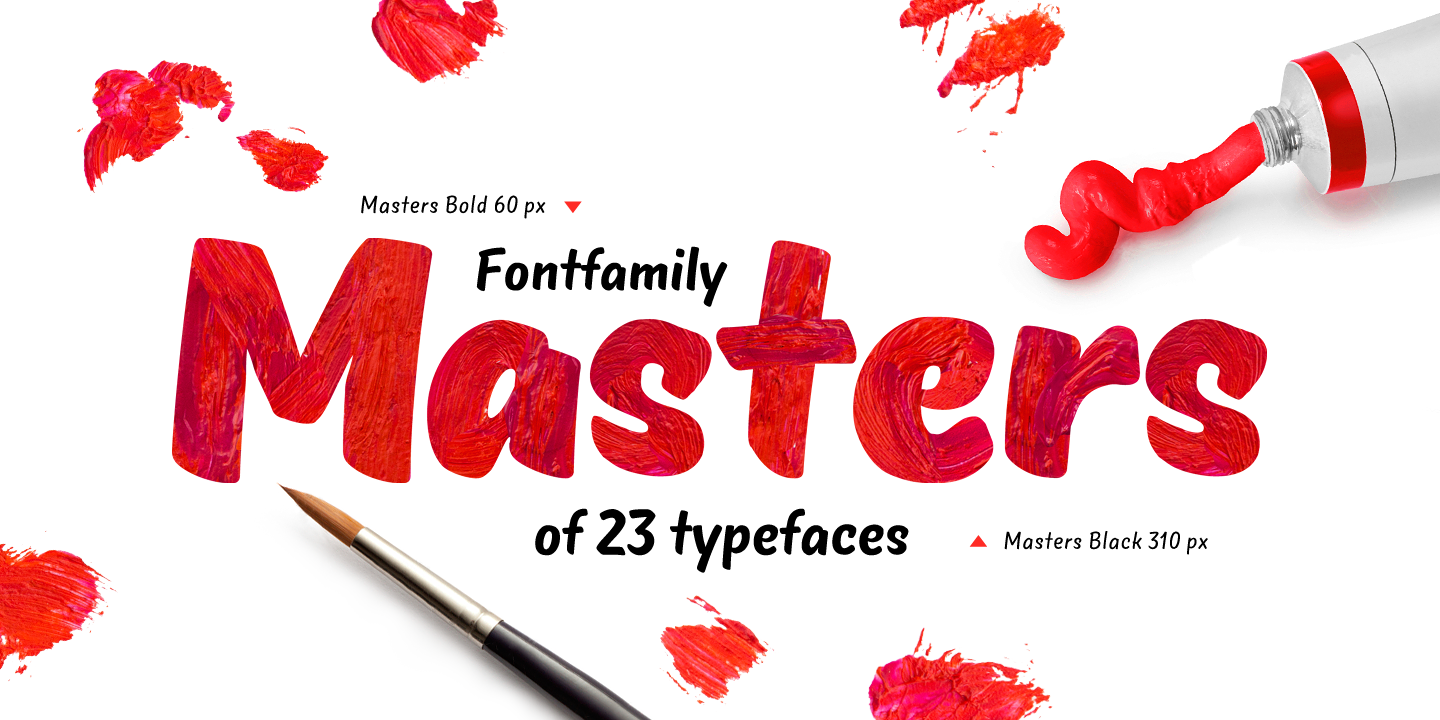
Pinatas Masters Free Download
Pinatas Masters Font Free Download
Pinatas Masters Font is perfect for party planning businesses, celebration venues, children's entertainment companies, festive event branding, Mexican restaurants, cultural festivals, birthday party invitations, and carnival-themed projects that require vibrant, joyful typography with authentic festive character and celebratory appeal.
What makes Pinatas Masters Font exciting is its incredible ability to capture the spirit of celebration and cultural authenticity. This delightful typeface features playful, hand-crafted letterforms that evoke traditional Mexican artistry and festive energy, making it ideal for brands seeking to communicate joy, tradition, and authentic cultural experiences.
The Pinatas Masters Font family includes regular, bold, and decorative weights, along with ornamental variations featuring traditional Mexican design elements. Each style maintains the font's characteristic festive charm while providing designers with versatile options for creating colorful layouts and engaging cultural communications.
Event planners and cultural brands consistently select Pinatas Masters Font Free Download for projects requiring authentic festive appeal and memorable character. This versatile typeface seamlessly captures celebration atmosphere while maintaining readability, ensuring brand messages resonate with audiences seeking genuine cultural experiences and joyful celebrations.
The font's handcrafted aesthetics and cultural authenticity make it particularly suitable for Hispanic market communications and celebration industries. Pinatas Masters Font delivers exceptional festive impact while ensuring clear legibility, offering designers a reliable solution for creating memorable brand experiences that communicate tradition, joy, and cultural pride across diverse marketing platforms.